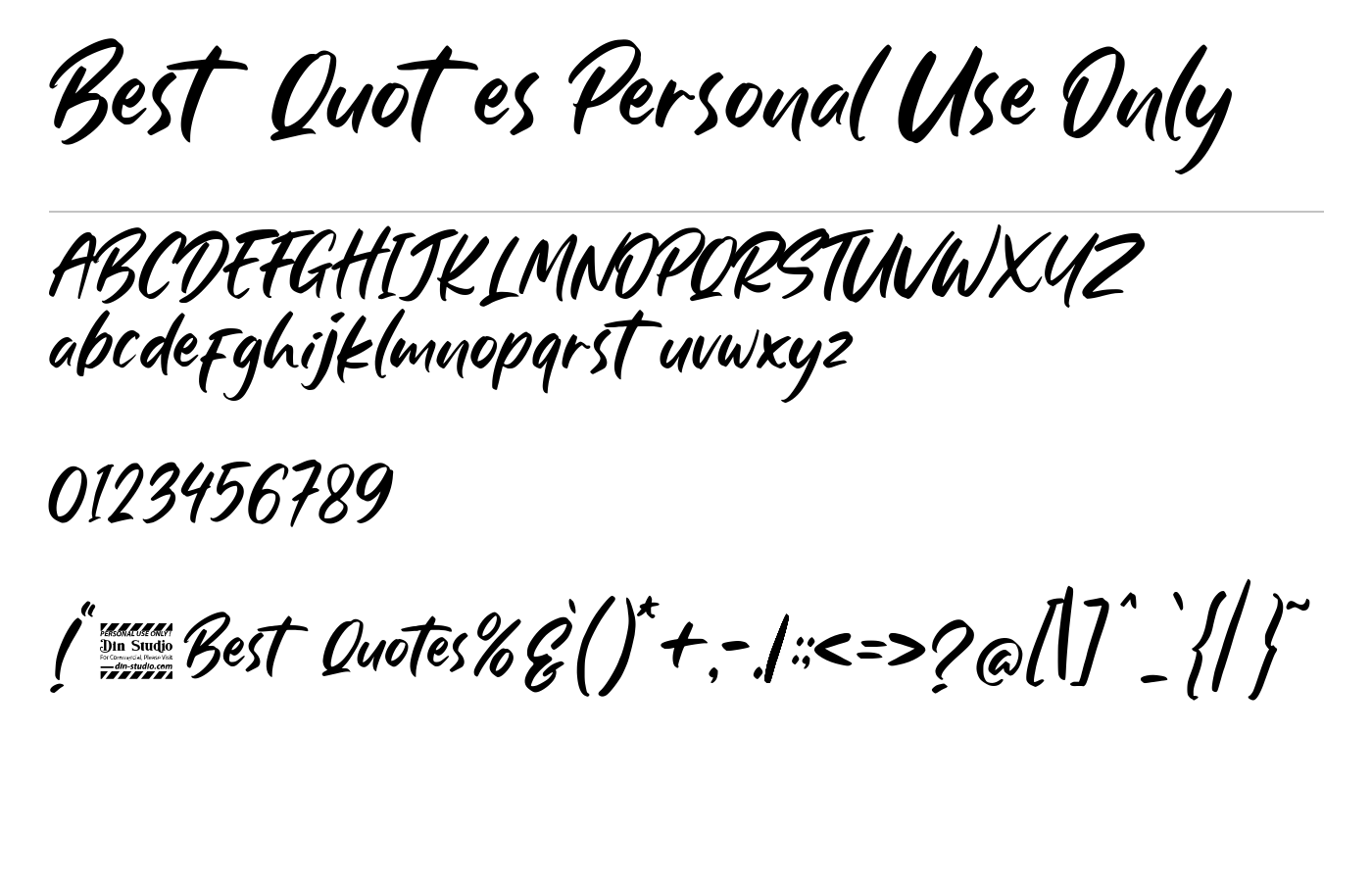
Best Quotes Personal Use Only is a lively script font with a casual and handwritten feel, featuring smooth, flowing strokes and moderate contrast that add a dynamic and expressive charm. Its natural, brush-like letterforms make it perfect for creating inviting and personal designs, ideal for quotes, logos, social media, and branding that seeks a warm and approachable personality. This font shines in creative projects where a relaxed yet stylish handwritten look is desired.
Best Quotes Personal Use Only Font
About Best Quotes Personal Use Only Font
| Font family | Best Quotes Personal Use Only Font |